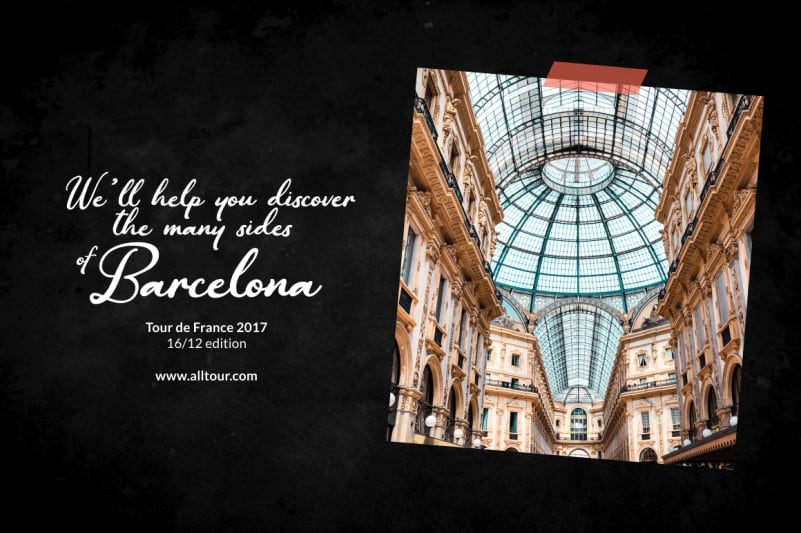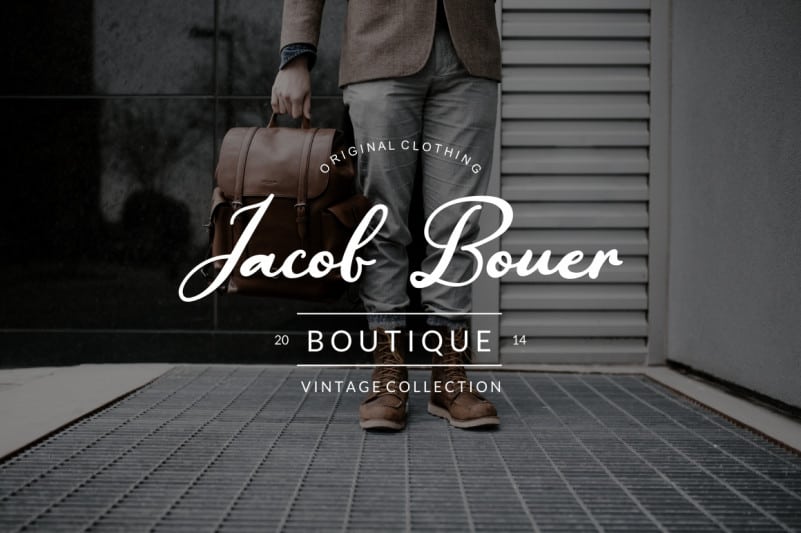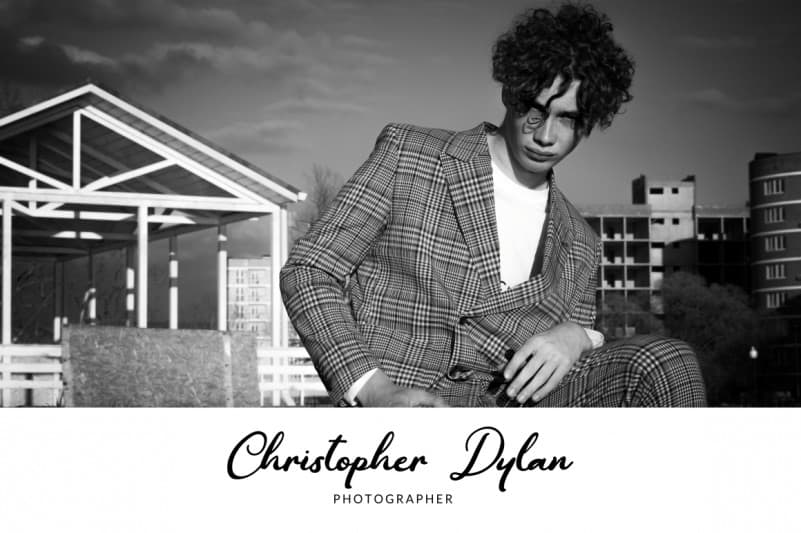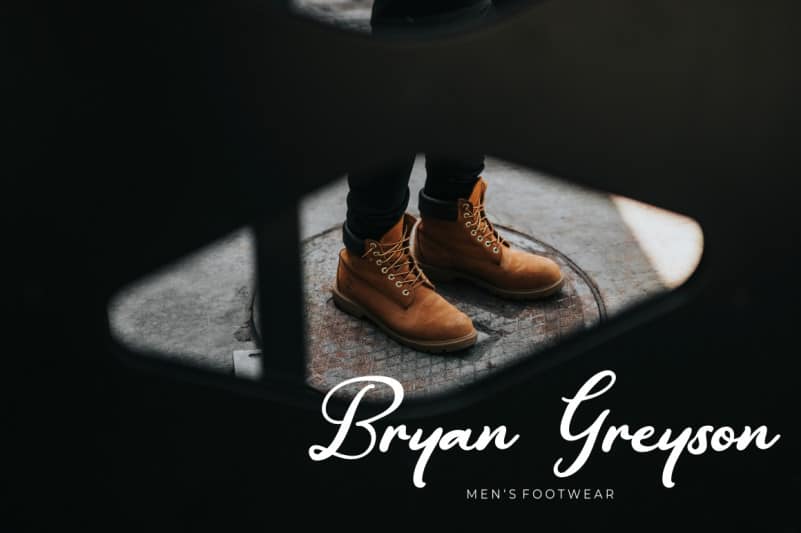
Californian Beach Script Font
Californian Beach Script Font is a handwritten signature script with a natural & stylish flow with vintage feel. It’s perfect choice for stylish branding & logo projects, product packaging, handwritten quotes, editorial design, invites, greetings and so much more!